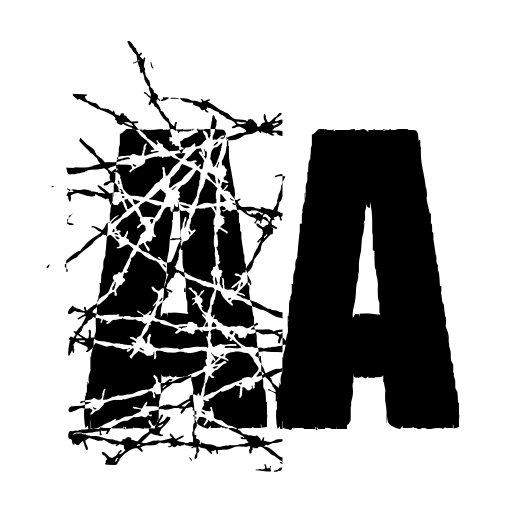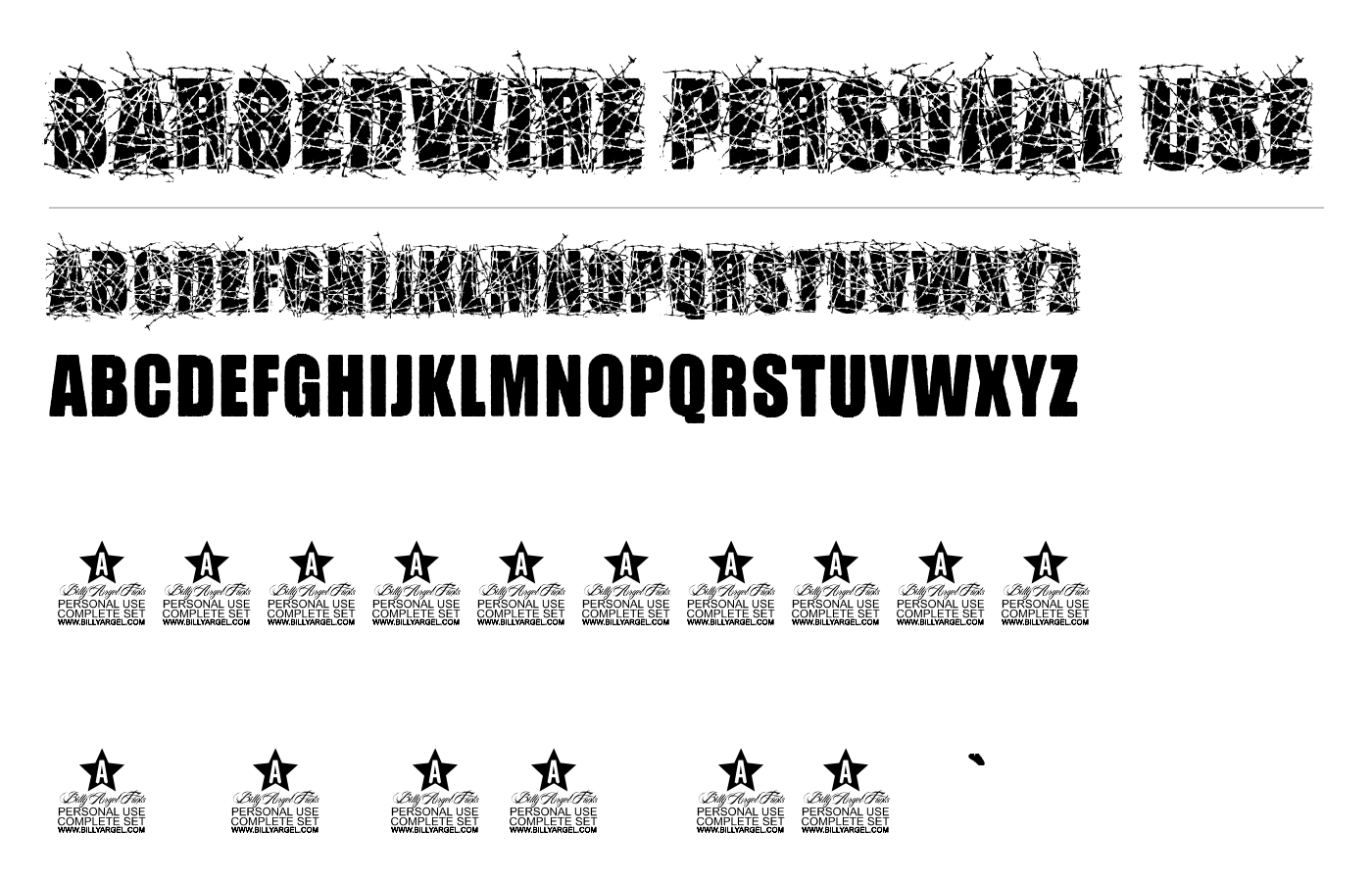
BarbedWire is a bold, condensed sans serif font characterized by its striking barbed wire texture overlay that gives it a gritty, rugged appearance. The heavy weight and blocky letterforms make it highly impactful and perfect for creating a strong, edgy mood, ideal for logos, posters, or branding that seeks a rebellious, industrial, or distressed vibe. Its uppercase-only style enhances the bold and assertive personality, making it less suited for body text but excellent for attention-grabbing headlines and artistic designs.
BARBEDWIRE PERSONAL USE Font
About BARBEDWIRE PERSONAL USE Font